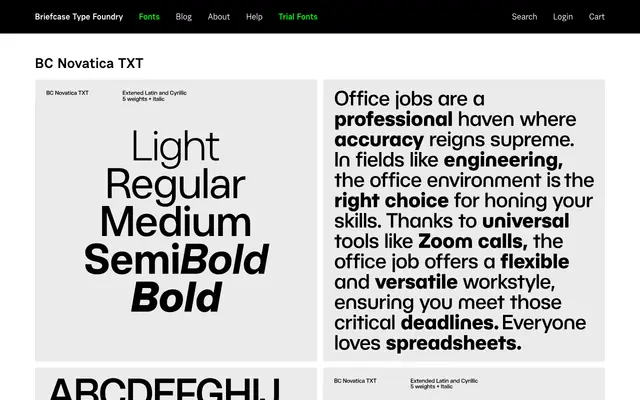
BC Novatica TXT
A text-optimised optical size variant of BC Novatica, drawn for sustained reading at smaller sizes.
BC Novatica TXT is the text-cut member of the BC Novatica family from Briefcase Type Foundry, calibrated for comfortable setting at text sizes. The 'TXT' designation indicates optical adjustments typical of type intended for body copy, such as wider spacing, open apertures and sturdier strokes. It sits alongside the broader BC Novatica family, which extends to ten fonts in total.
The 'TXT' suffix suggests a text-optimised optical size variant, consistent with a transitional or classical serif designed for continuous reading. Without further detail, a transitional serif classification is the most plausible fit for a Briefcase foundry text family.